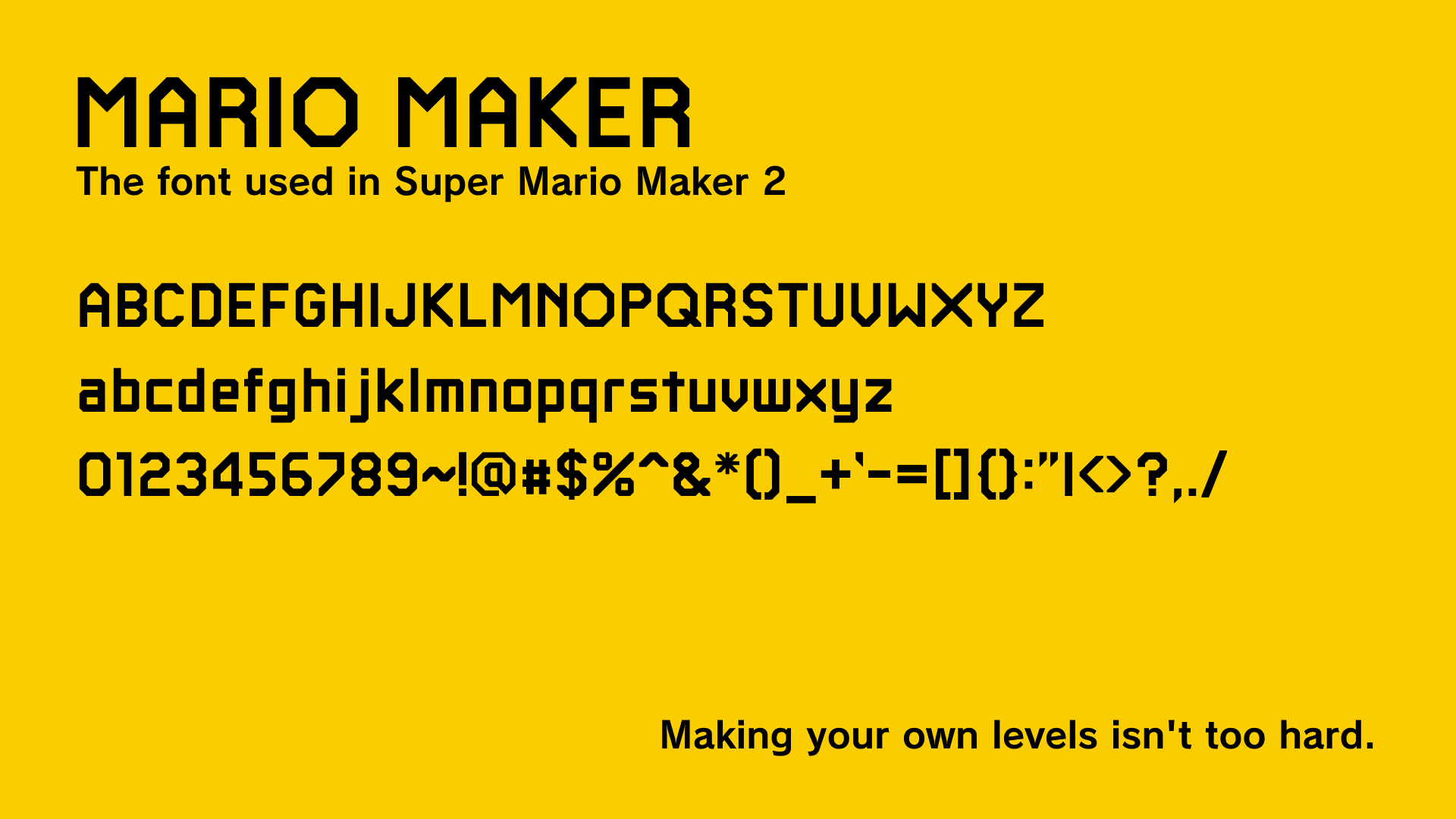
Here is a font that is used throughout Nintendo's Super Mario Maker 2 for the Nintendo Switch. While a very similar font to this was used in its predecessors, Super Mario Maker (Wii U) and Super Mario Maker for Nintendo 3DS, it had some differences: there were no lowercase letters, and the X, 0, and 7 were different. In SMM2, it was updated to include lowercase letters. The font is created by Nintendo.